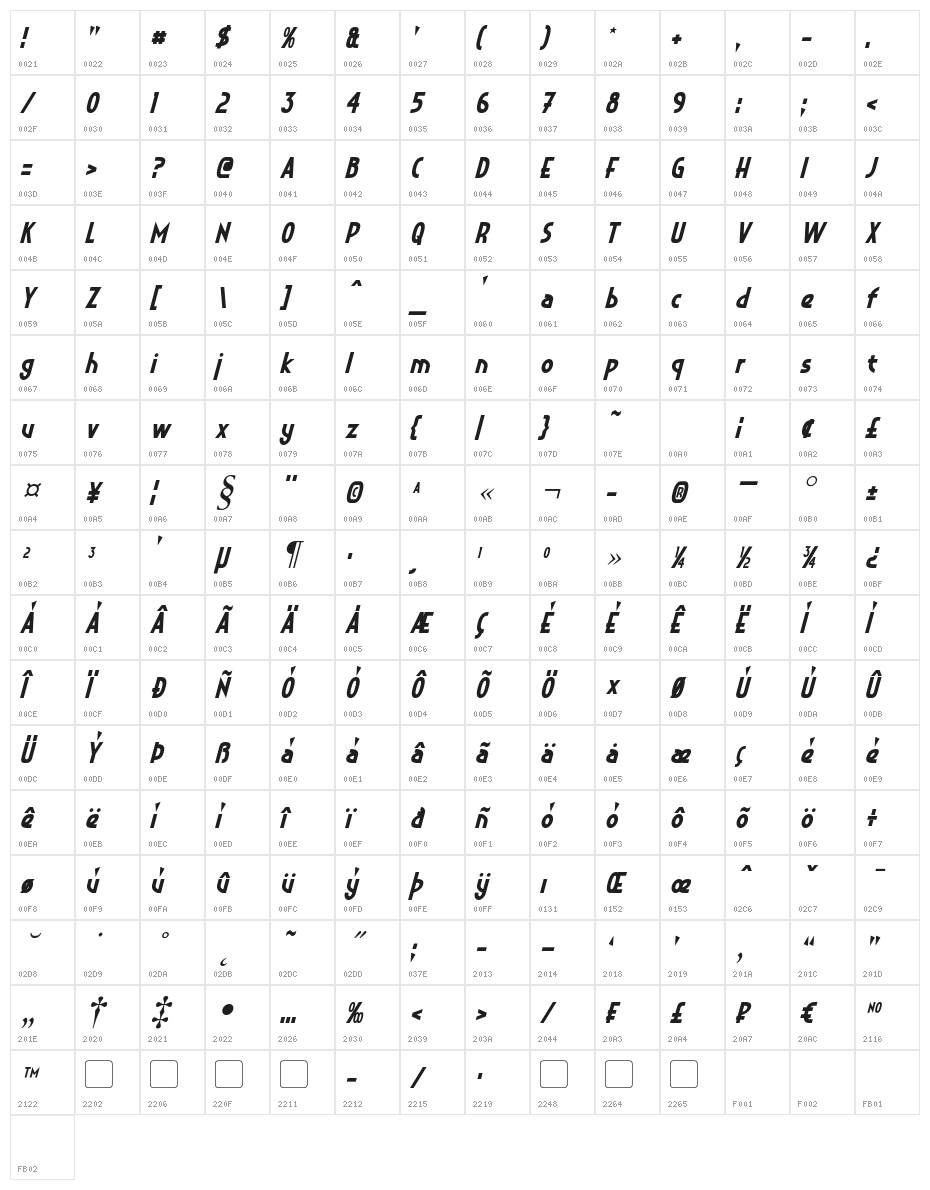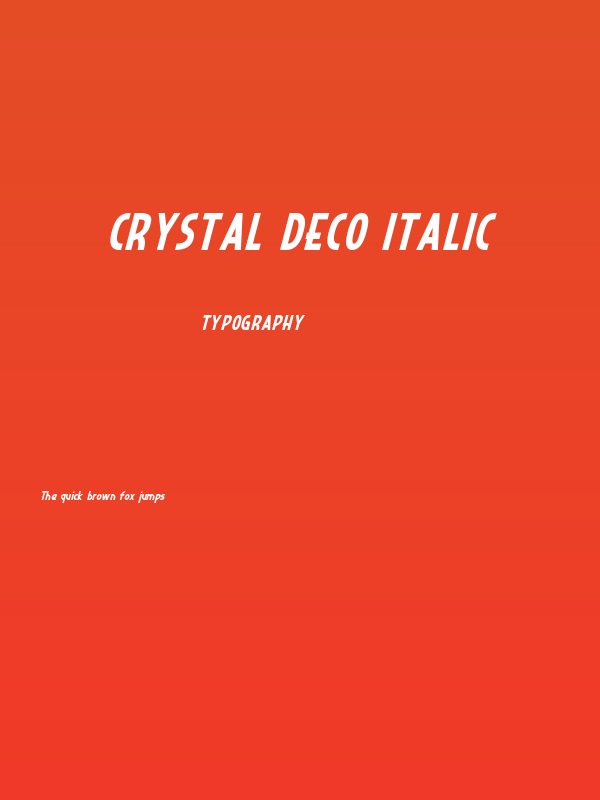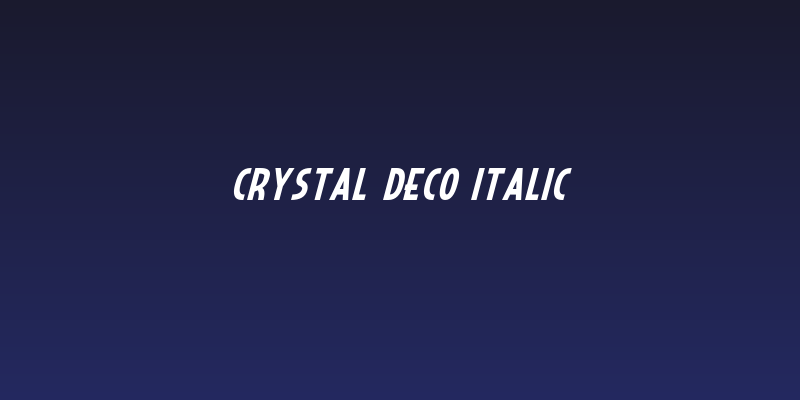
Crystal Deco Italic Font
Crystal Deco Italic Description
This font features a dynamic and angular design, characterized by its italicized and bold appearance. The letters are sharply defined with a distinct geometric influence, giving it a modern and energetic feel. The uppercase letters are particularly striking, with a strong presence that commands attention. The lowercase letters maintain the same angular style, ensuring consistency throughout the typeface. Numbers and special characters are designed with the same bold and italicized characteristics, making them stand out effectively. The overall style is reminiscent of Art Deco influences, with a contemporary twist that makes it suitable for modern applications.
| Proposed Projects | Ideal for branding, posters, and headlines where a bold, modern look is desired. |